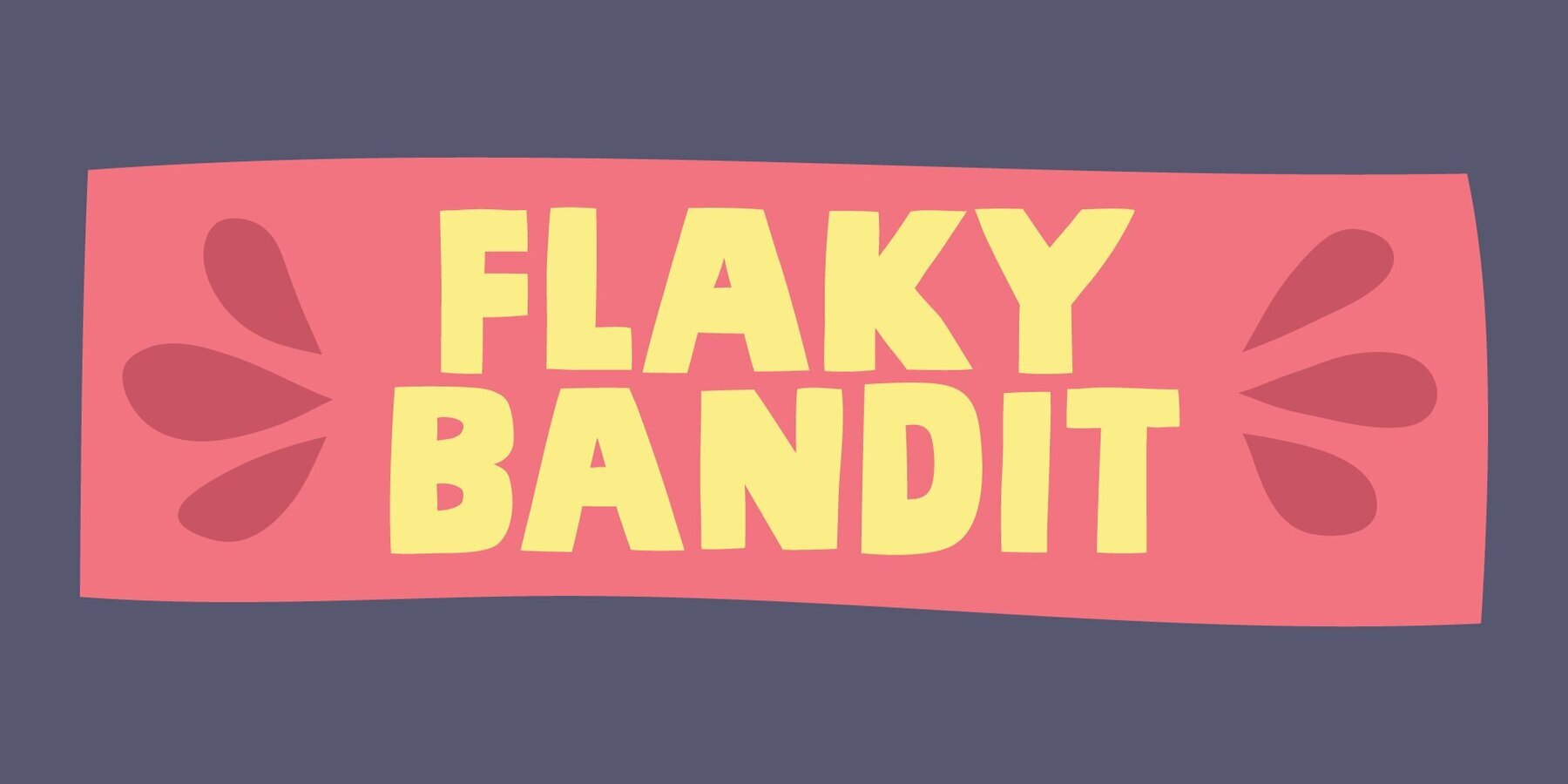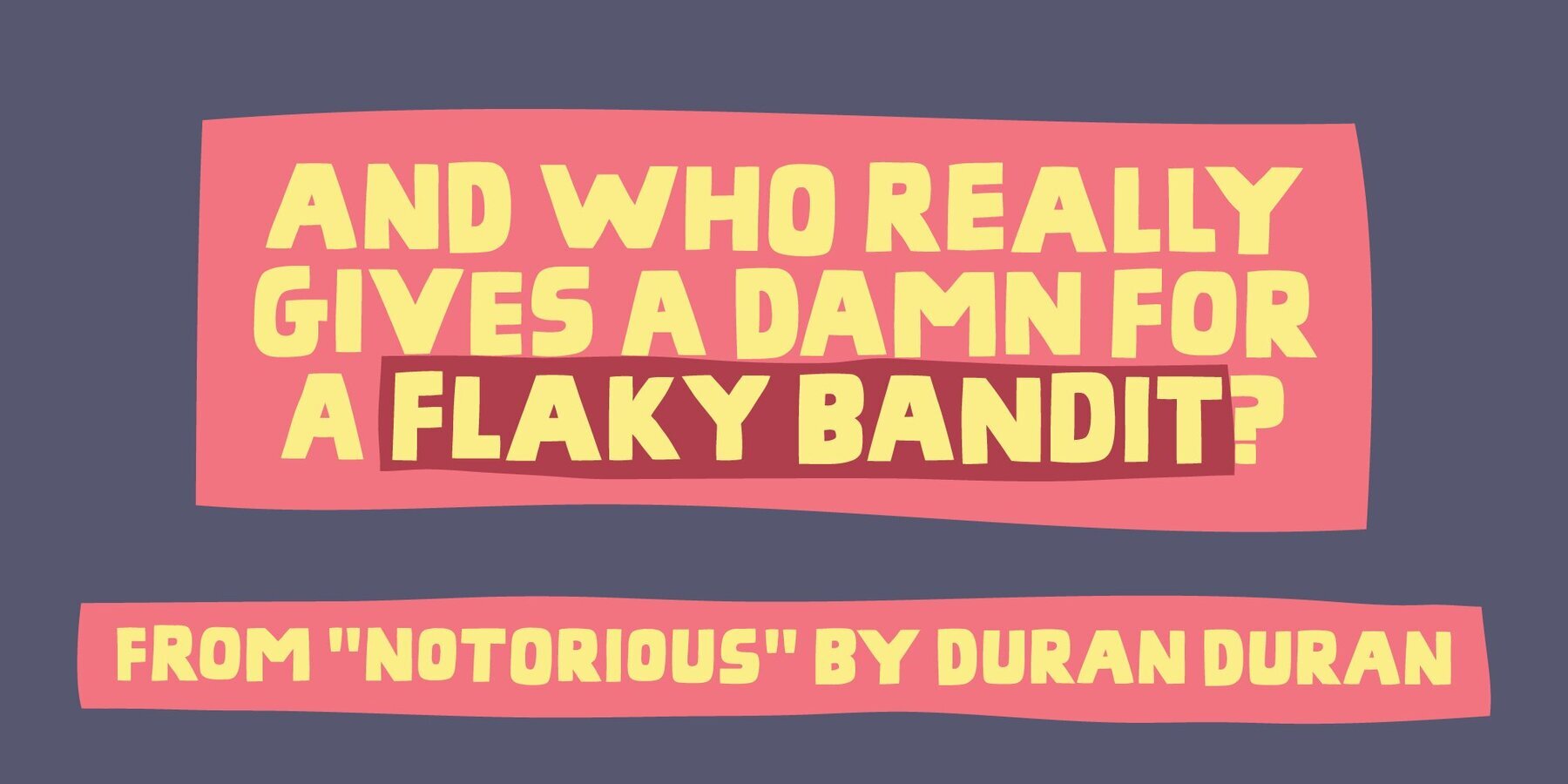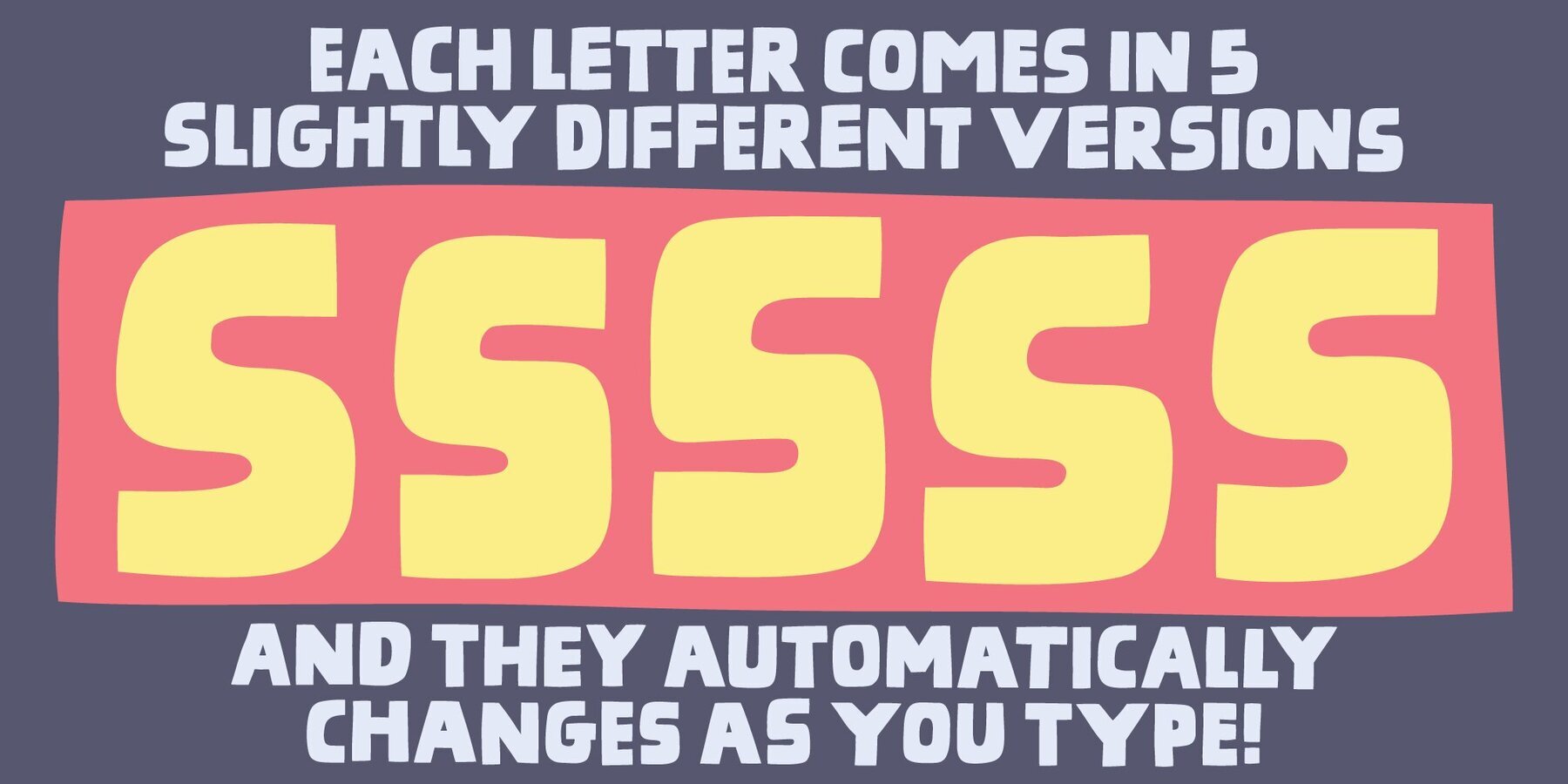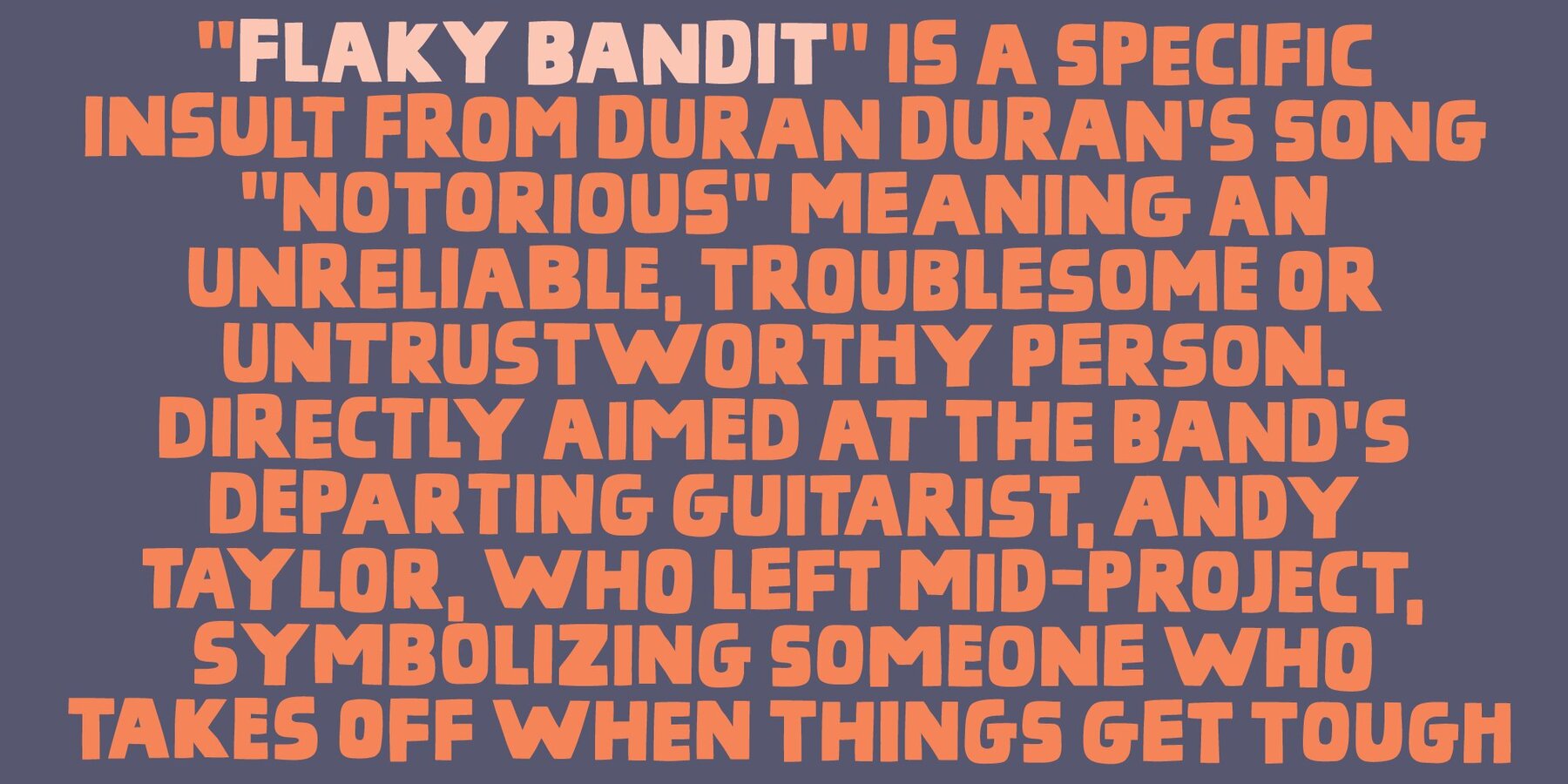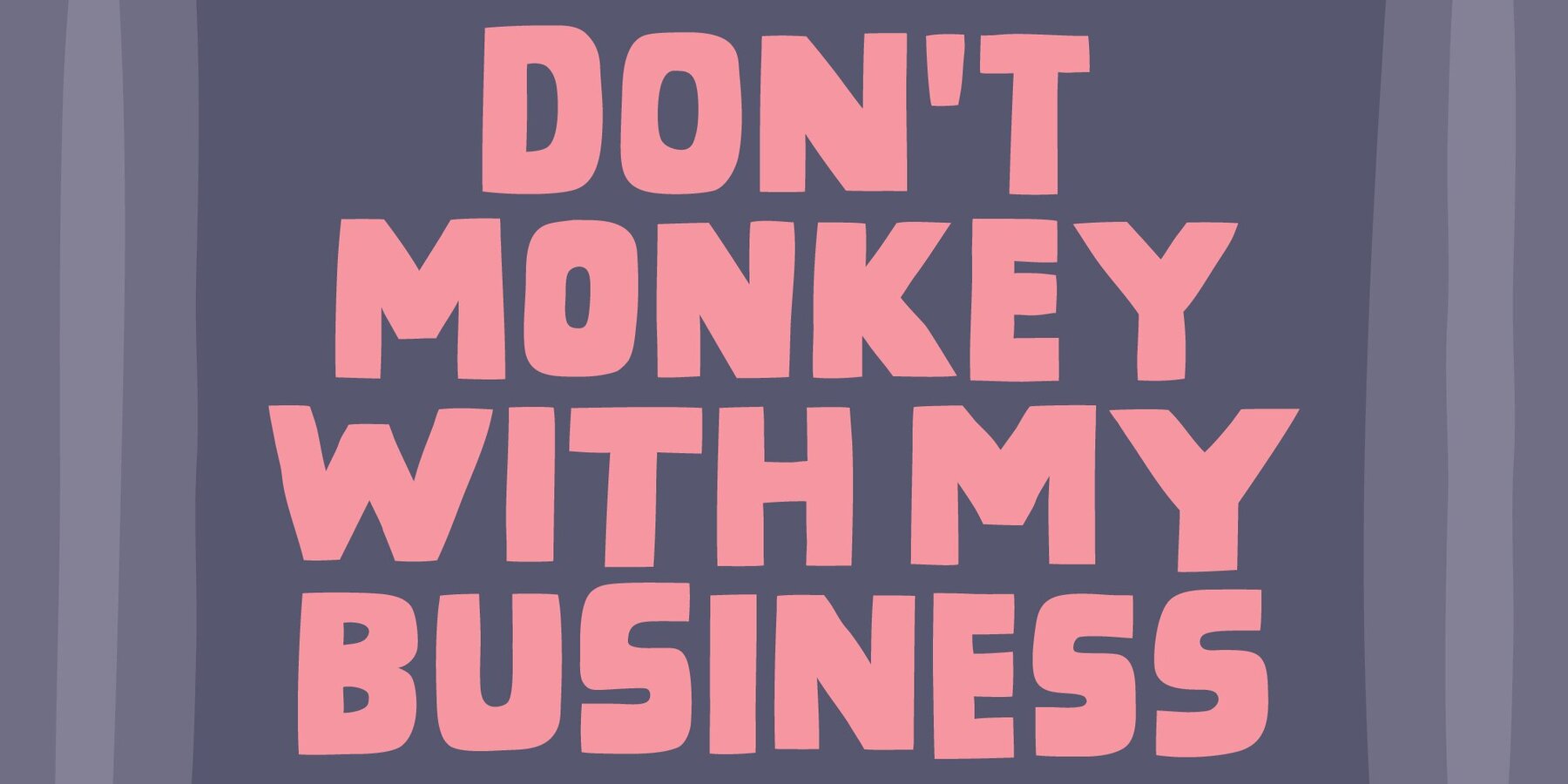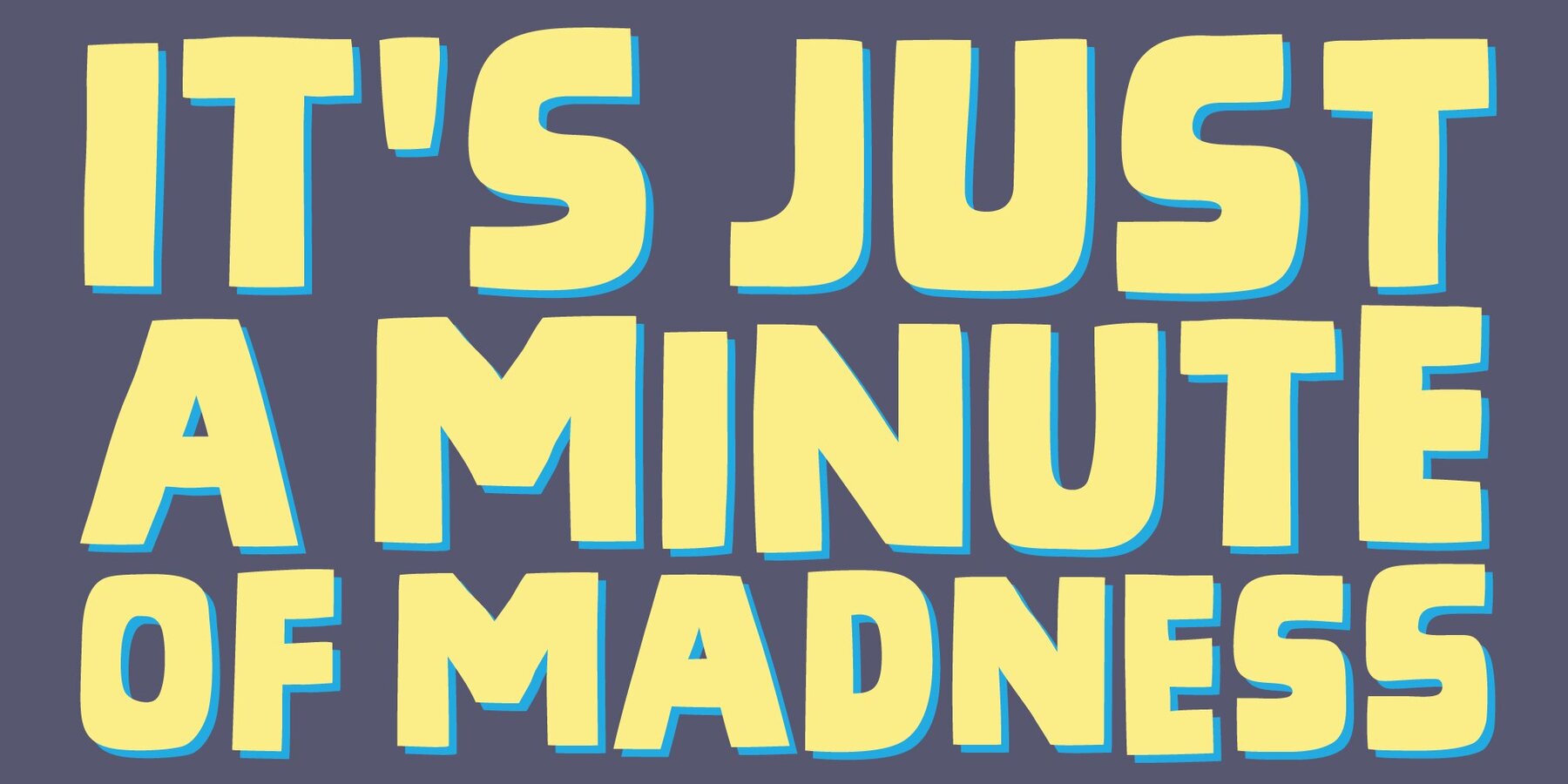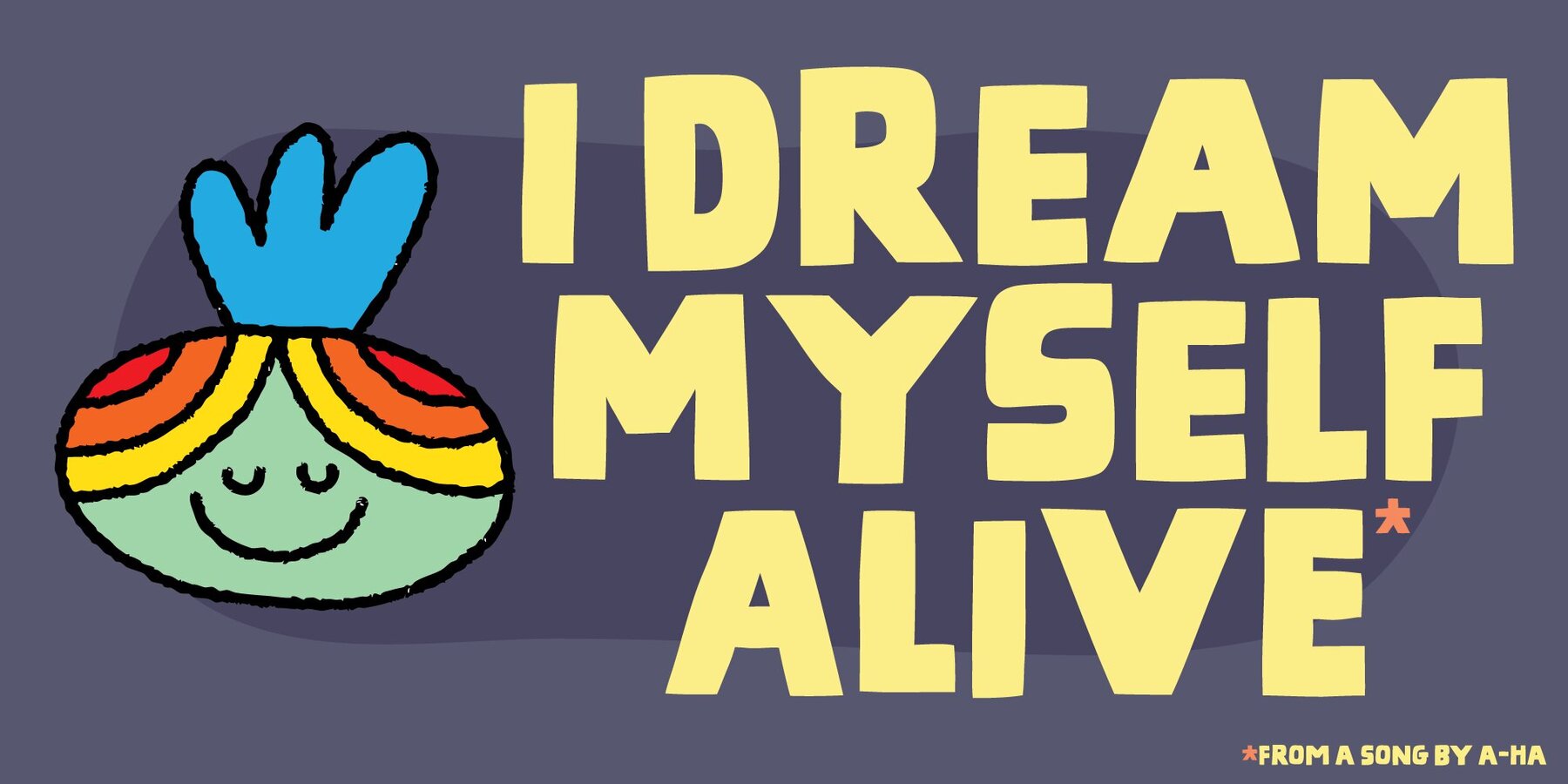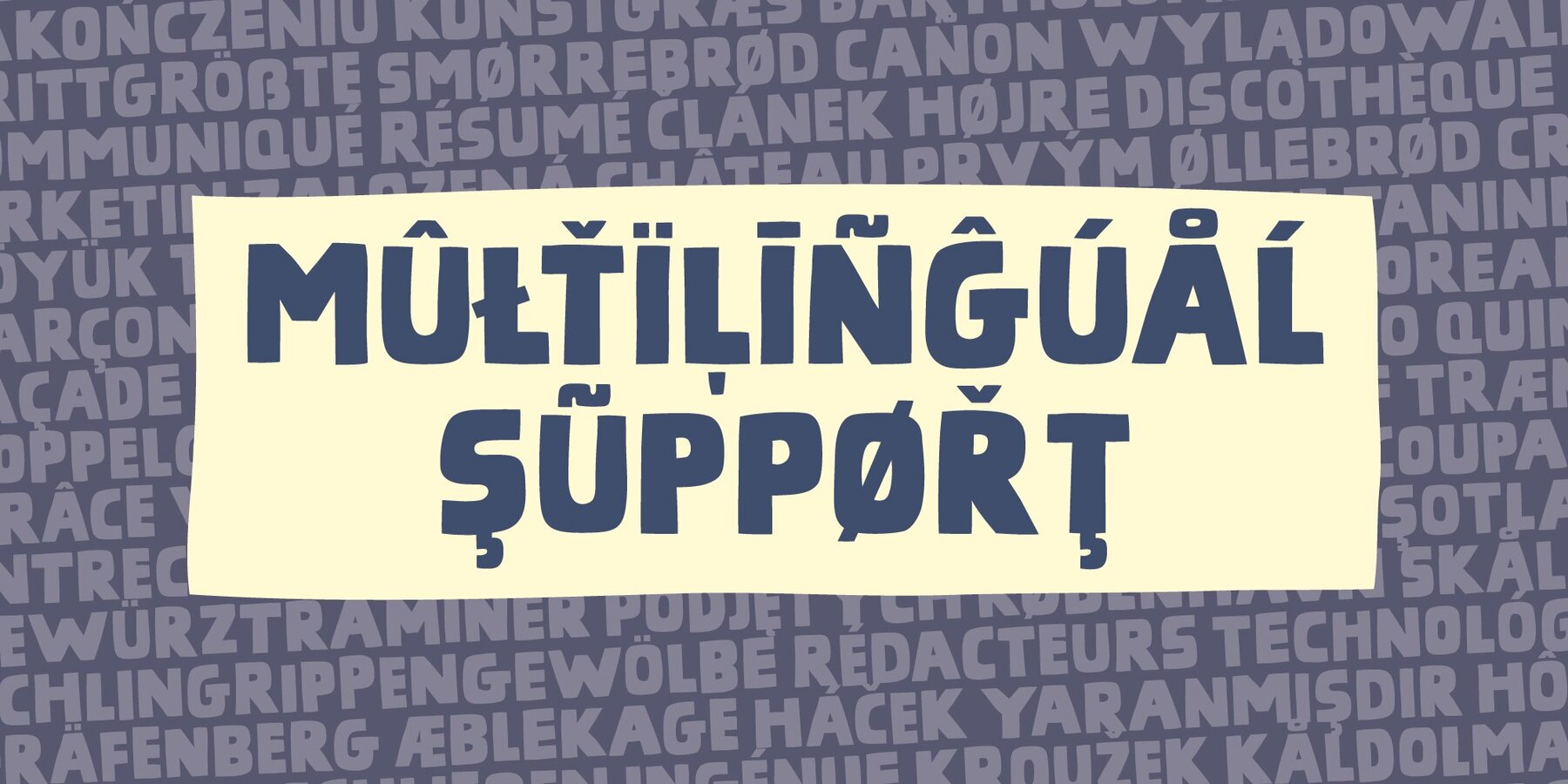
Flaky Bandit Font
Flaky Bandit draws its creative spark from a moment in music history, capturing the spirit of change and renewal. This all-caps, graffiti-style font features bold, easy-to-read characters with a distinctly handmade feel. Its thick letters create a confident visual impact, making it ideal for titles, branding, and statement artwork. Each letter in Flaky Bandit offers five subtle variations that shift automatically as you type, delivering an organic, ever-changing appearance. This feature adds a lively, dynamic texture—just right for posters, album covers, or any design that benefits from authenticity.Flaky Bandit: Graffiti-Inspired All-Caps Font